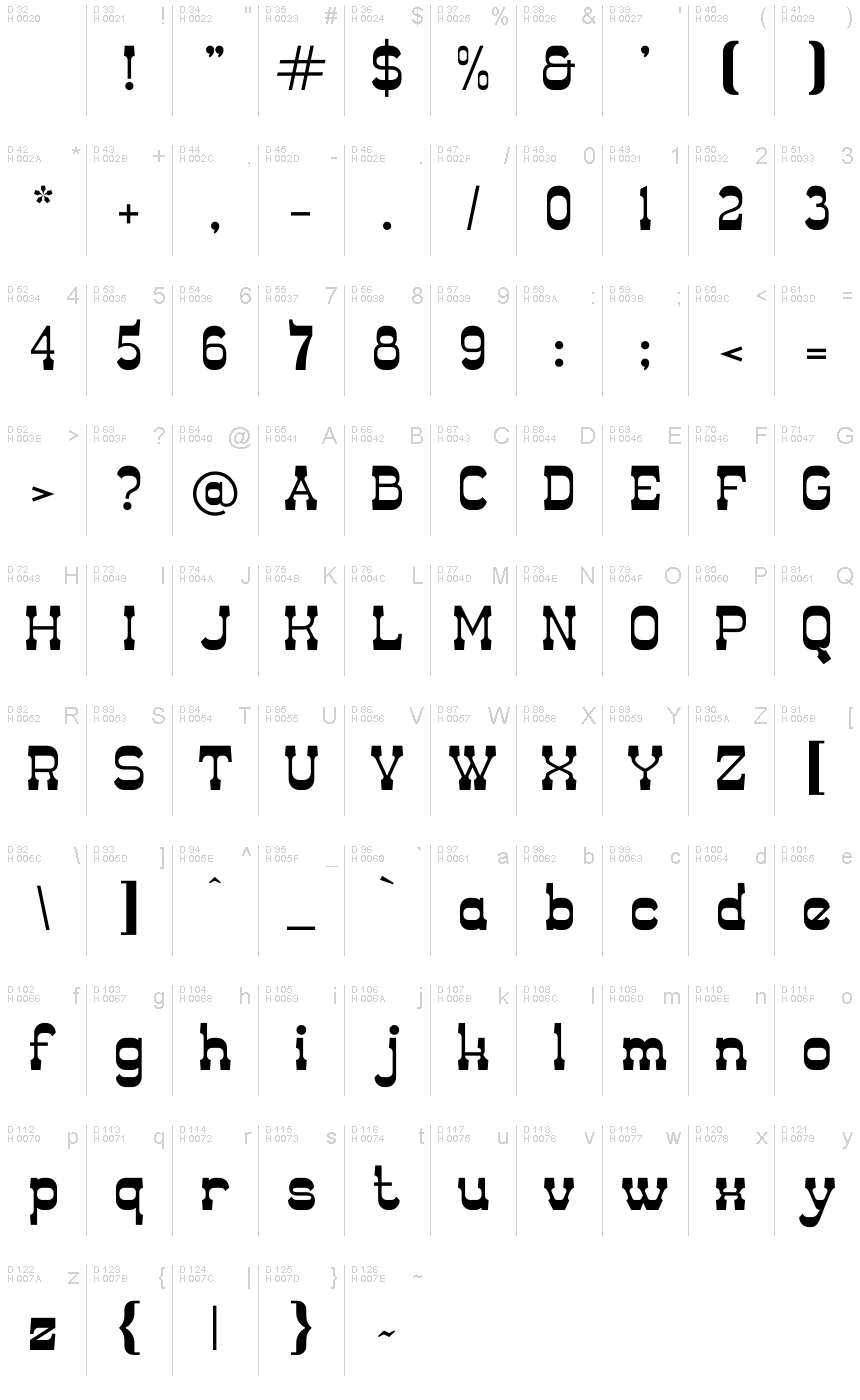
Mayor Sheriv, crafted by Storytype Studio, is a bold display font that exudes a distinct Western flair. Its unique characters combine solid, robust lines with smooth curves, creating a dynamic balance between strength and elegance. The exaggerated strokes and distinctive letterforms make it an ideal choice for designs that demand attention and convey a sense of rugged individuality.
Perfect for posters, logos, headlines, and branding projects that need to stand out with a touch of the Old West charm. Mayor Sheriv brings character and authenticity to any visual composition, making it an excellent tool for designers seeking to evoke a sense of adventure and timeless style.